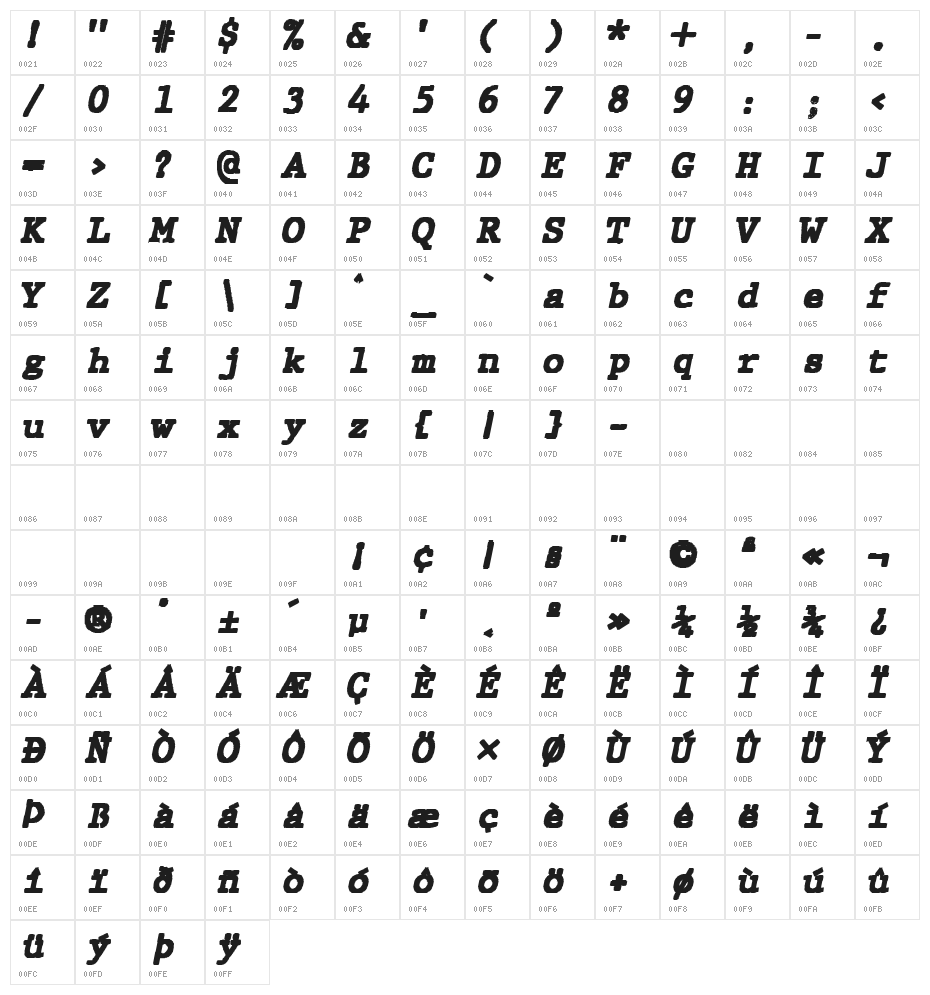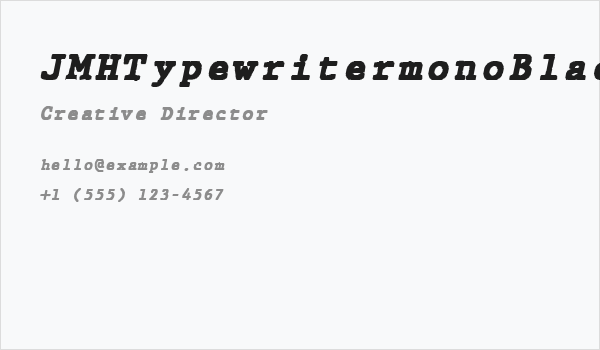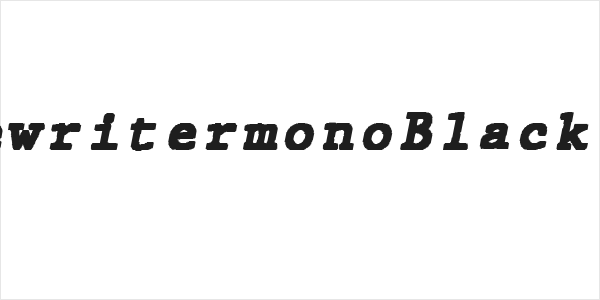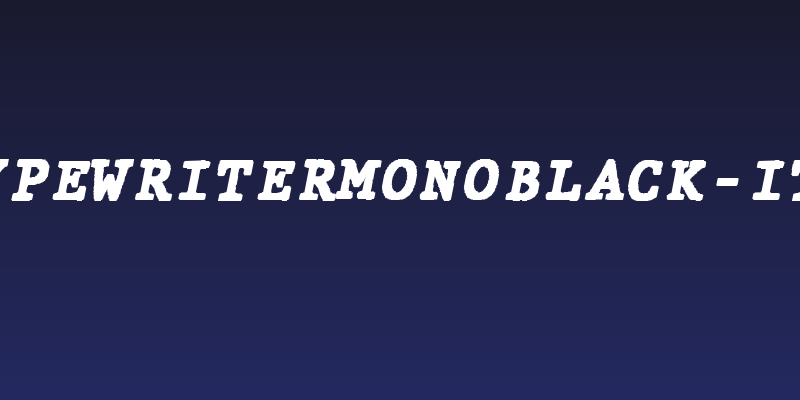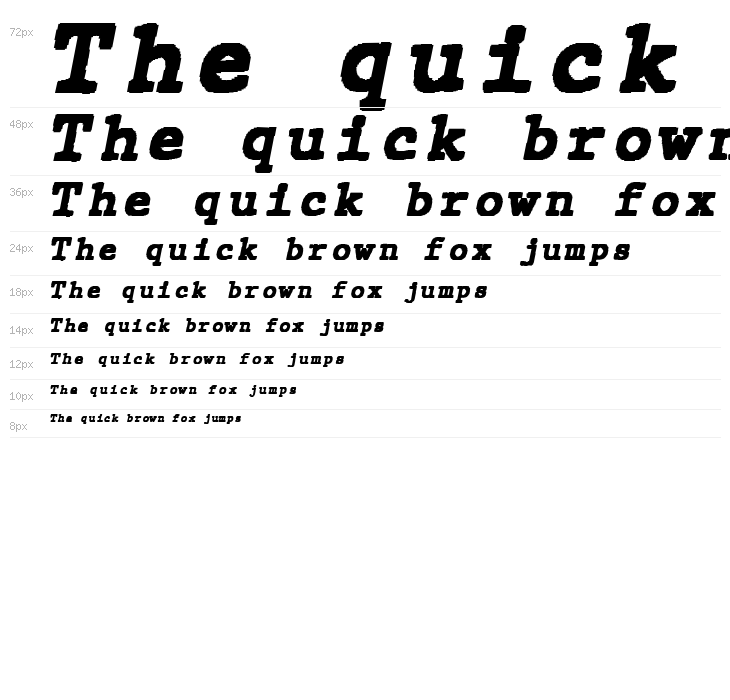
JMHTypewritermonoBlack-Italic Font
JMHTypewritermonoBlack-Italic Description
This typeface embodies a classic typewriter aesthetic with a modern twist. Each character is monospaced, ensuring uniformity in width, which is characteristic of traditional typewriter fonts. The italic style adds a dynamic and slightly playful touch, making it stand out from typical typewriter fonts. The bold weight gives it a strong presence, suitable for making impactful statements. The font features medium contrast in stroke thickness, providing a balanced and readable appearance. Its slightly condensed width allows for efficient use of space without compromising legibility. The character spacing is normal, ensuring clarity and ease of reading.
| Use Case | Headlines, Logos, Coding |
| Proposed Projects | Ideal for retro-themed designs, coding projects, typewriter art, and any creative work requiring a vintage yet modern typewriter look. |